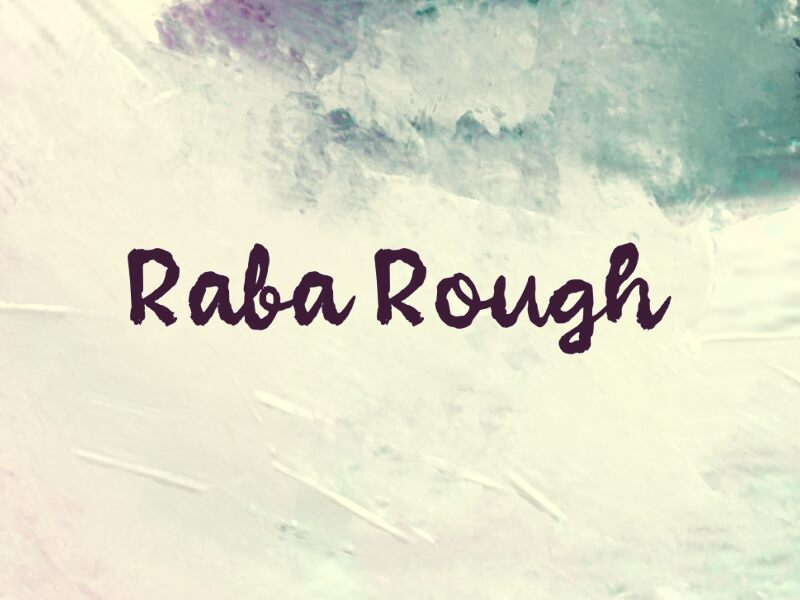
Raba Rough font balances artistic flair and approachability with casual vibes in between. Escape from the rigidity of formal fonts, and replace the energy of your projects with an approachable rustic charm. Designed by wep, this wonderful free font can be used in personal applications, signifying the dynamism behind brush fonts with its features.
Seamless typography adds an informal style to notebooks and diaries, creating innovative designs when the font is used for branding presentations. Elevate those branding projects and focus on a new concept for coffee shops and eatery logotypes with Raba Rough, or share motivational quotes that appear exactly how they were intended.
Use in personal applications or contact the author for commercial use. The font uses items that differ in significance and shape. Popularity may lie in the eye of the observer, but with Raba Rough, every viewer will be instantly drawn by this font’s vivid designs.
Raba Rough is a unique and stylish free font that combines ruggedness with a modern twist. Ideal for creative projects, this font brings a sense of personality to any design, making it perfect for branding, posters, and more.
With its distinct appearance, Raba Rough stands out in both print and digital media. Whether you're working on a personal project or a professional design, this free font can add an eye-catching touch.